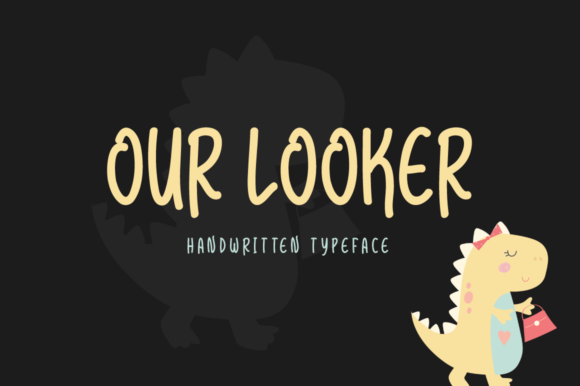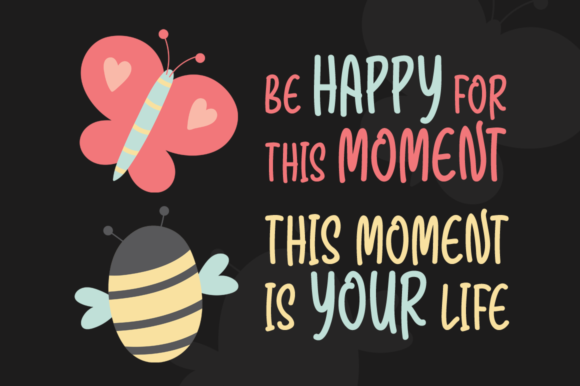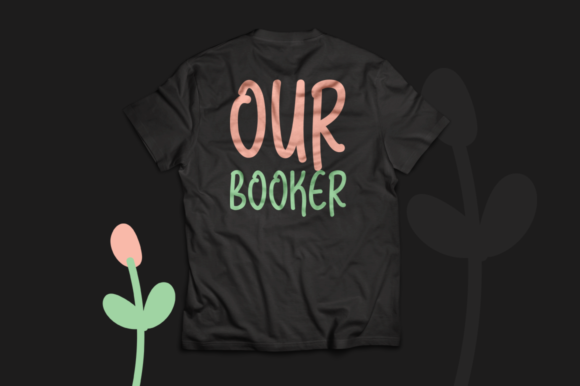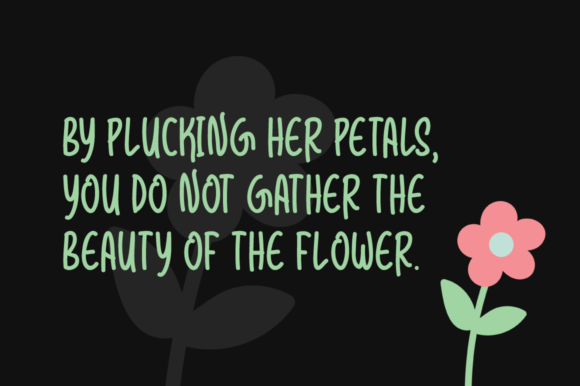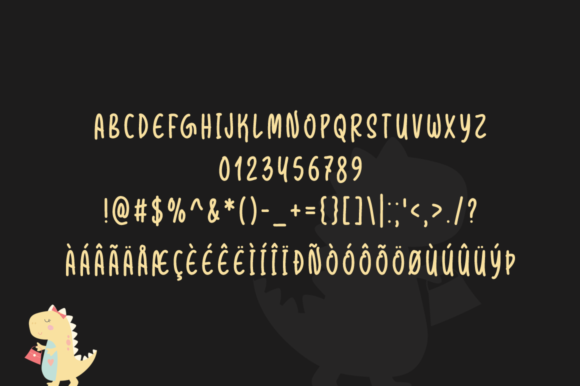
Our Looker Font
About Our Looker Font
The Our Looker is a brand new modern handwritten font. It’s perfectly suited for stationery, logos, t-shirts, papers, print designs, website headers, photo frames, flyers, music covers, posters, image sliders and much more.